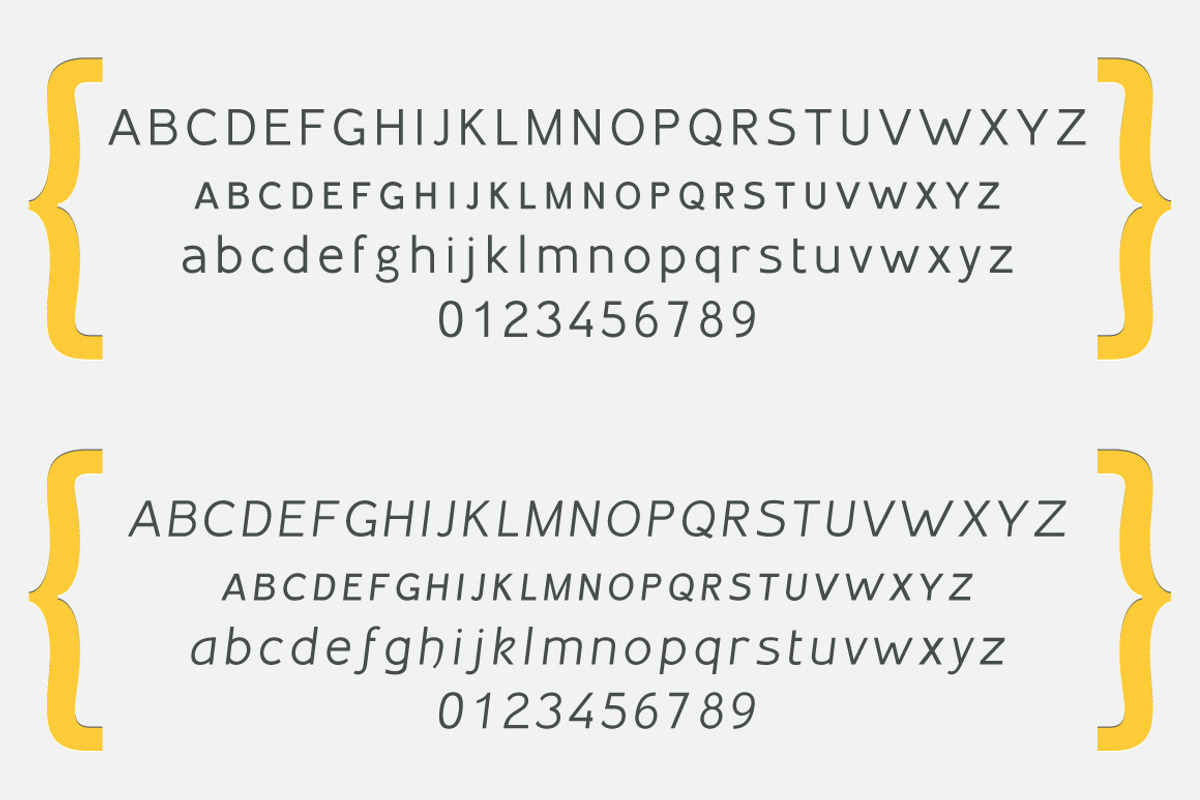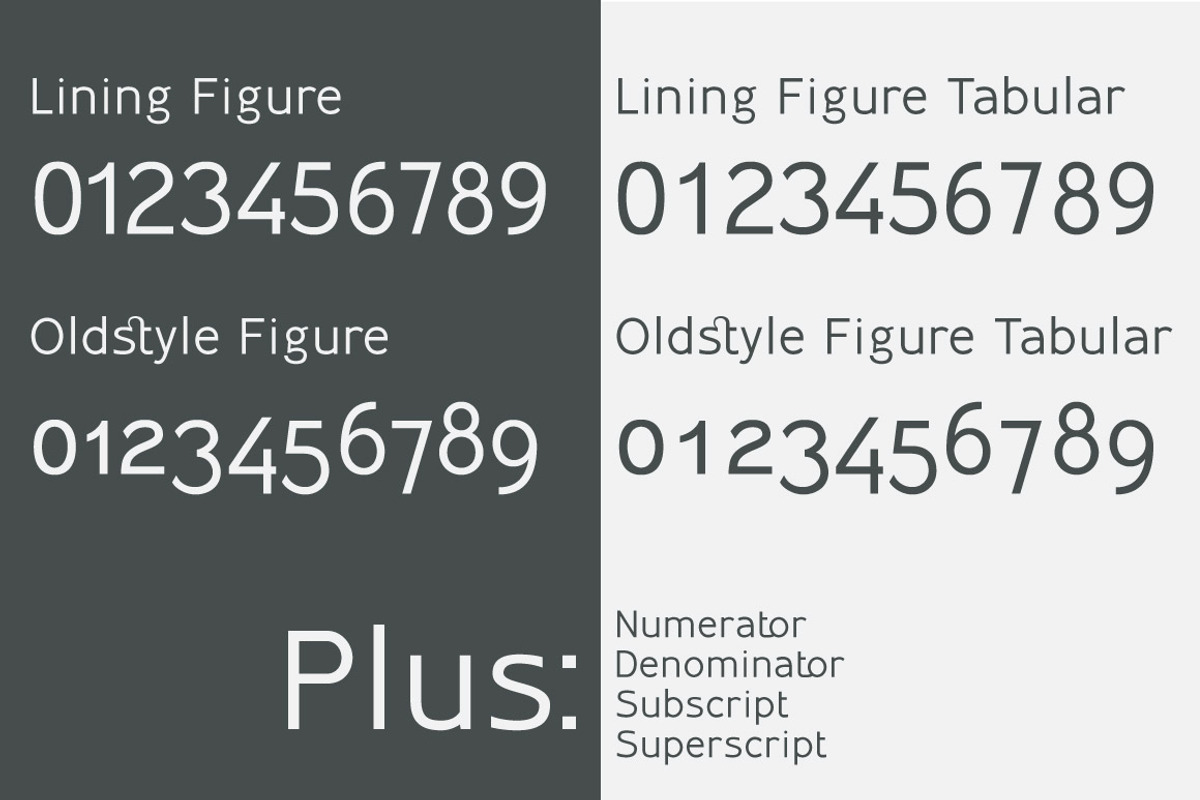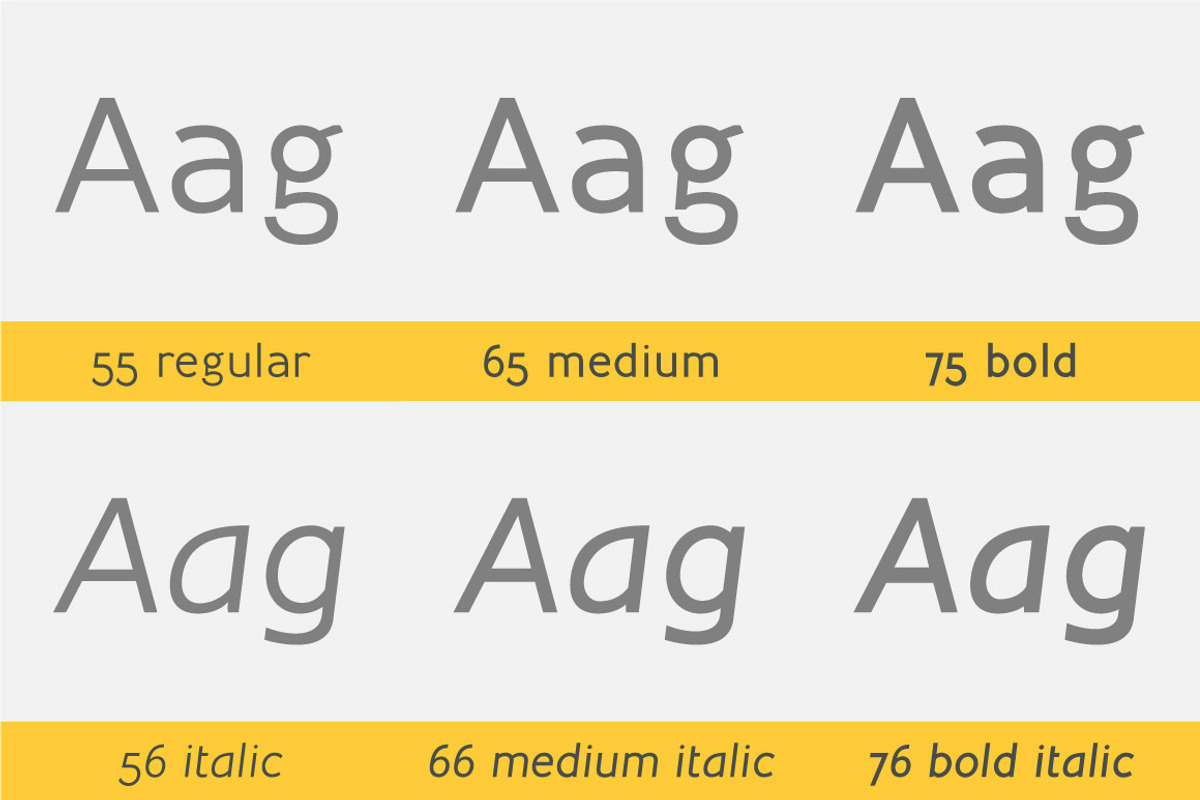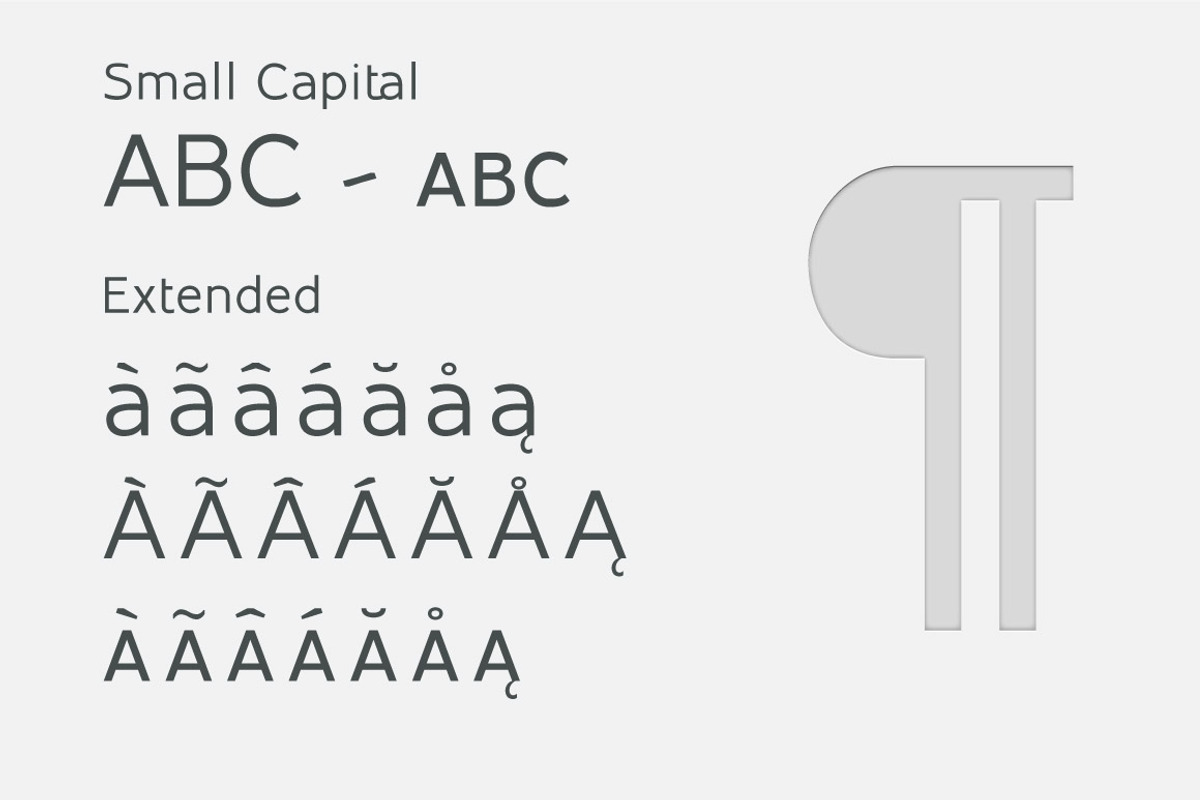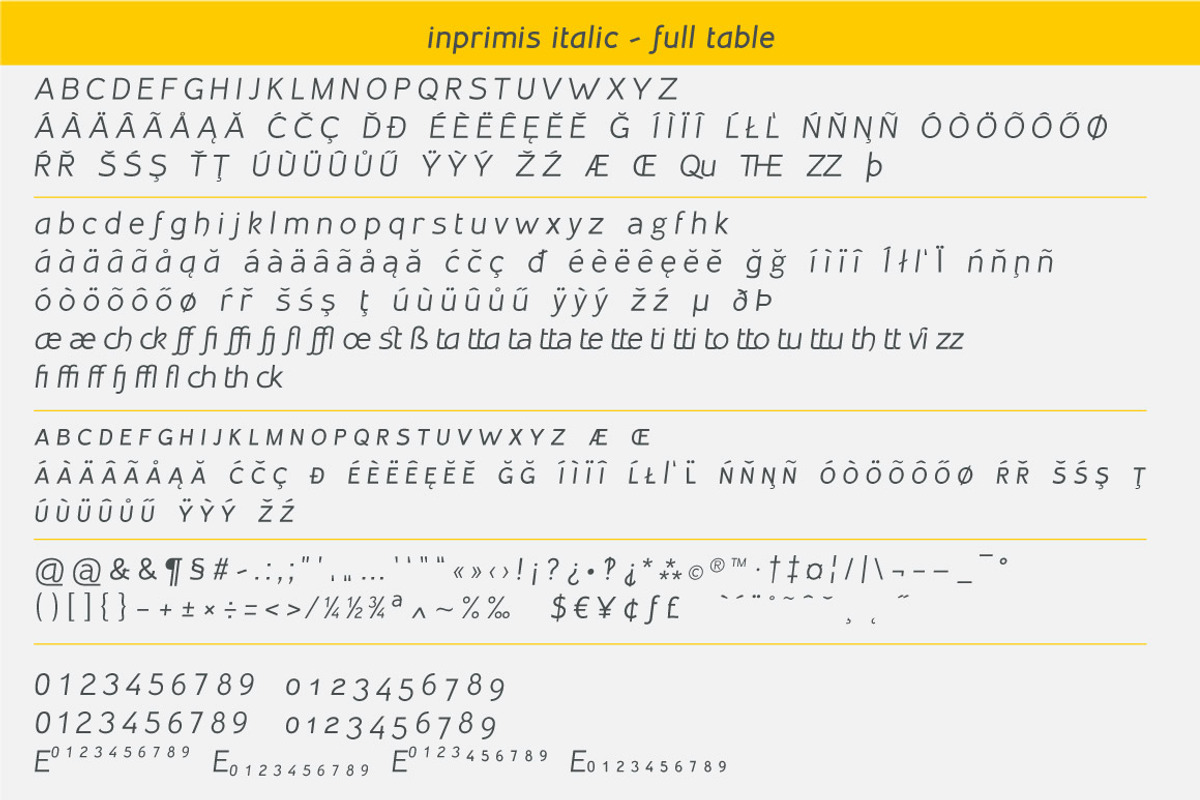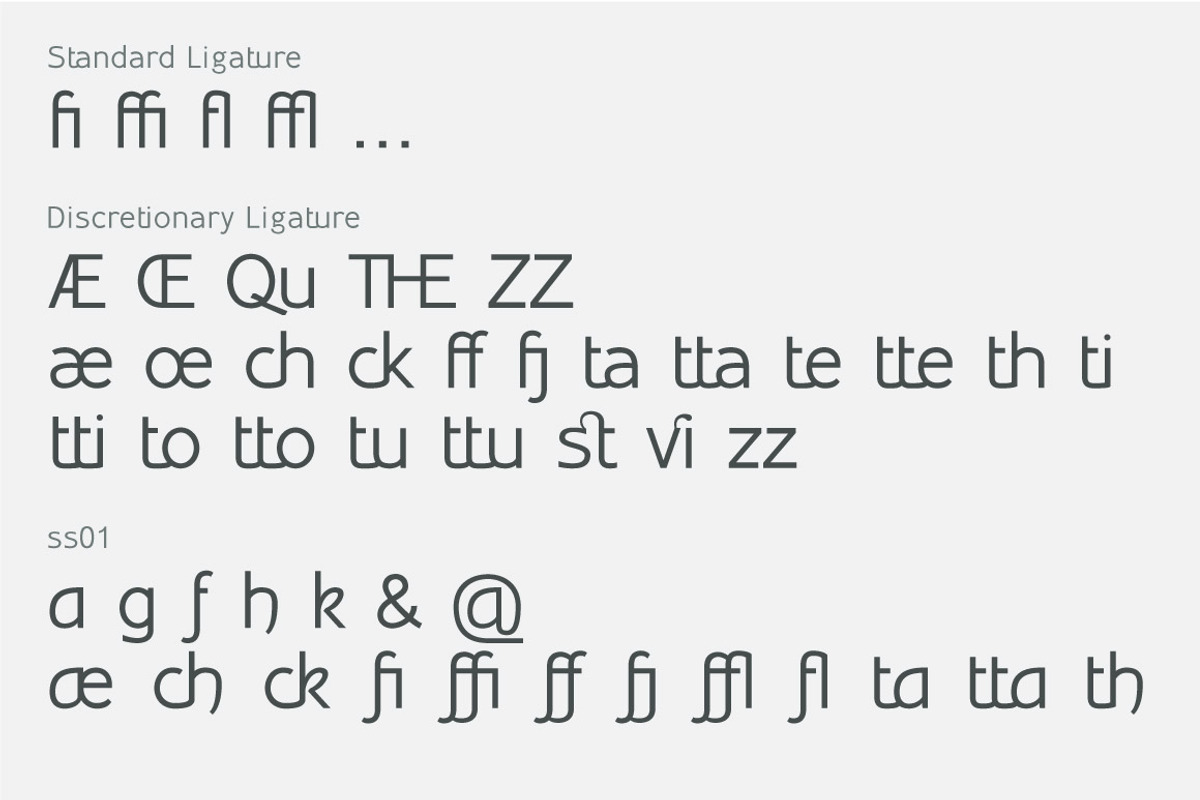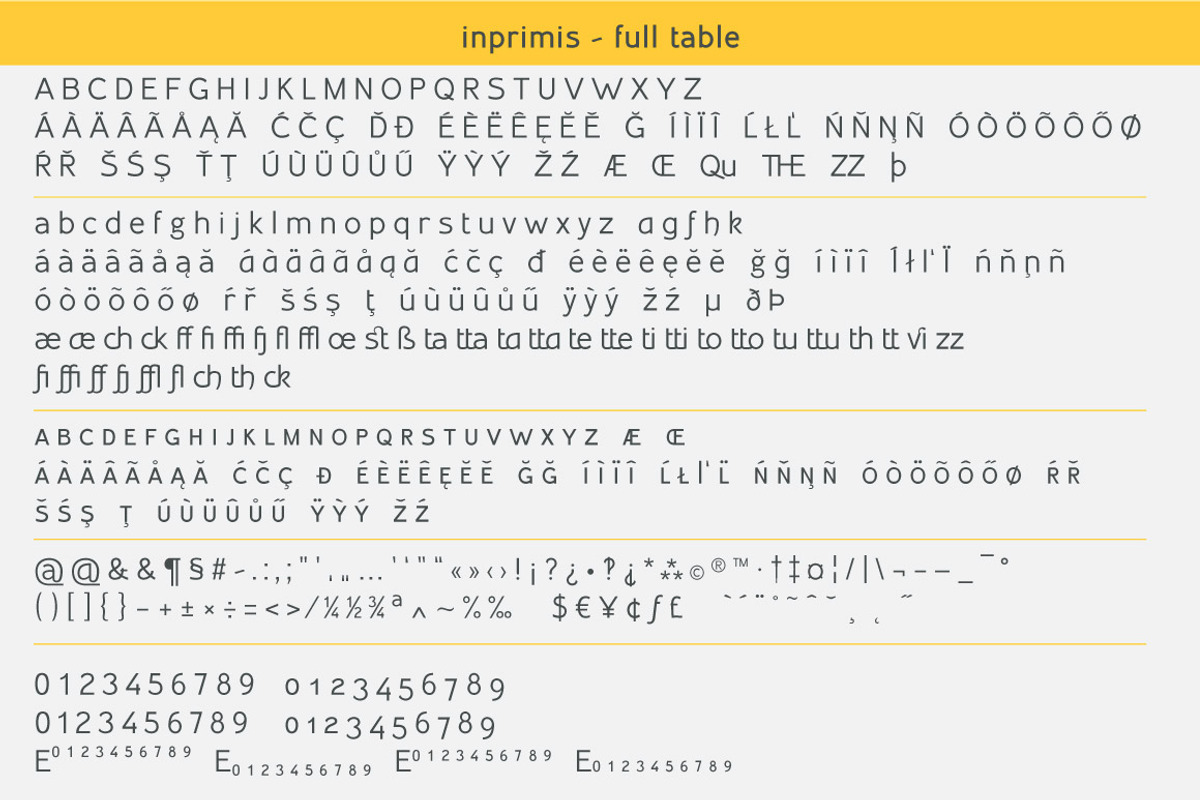
Inprimis - New Sans Serif typefamily
Inprimis - New Sans Serif typefamily by Bellini studio is a font selected for branding, posters, packaging, typography.
- Each weight includes extended language support, ligatures and more.
- A mix of geometric forms, antique ligature and oblsolete (or forget?) gliphs.
- ¶ 490 gliphs each variant (2940 total) ¶ Standard + discretionary ligature ¶ Alternative style set ¶ Small capital ¶ Latin extended ¶ Lining
- Inprimis Regular
- Inprimis Italic
- Inprimis Medium
- Inprimis Medium Italic
- Inprimis Bold
- Inprimis Bold Italic